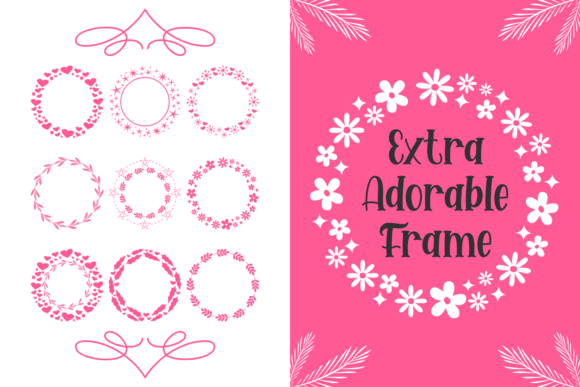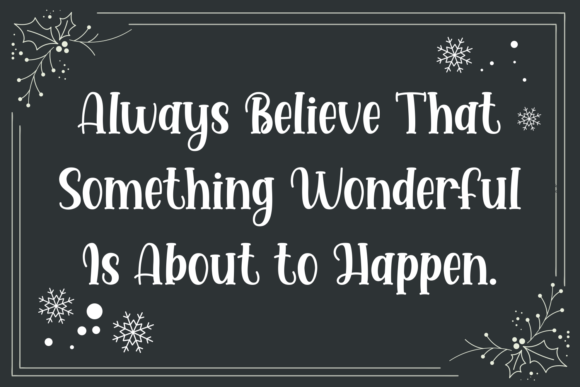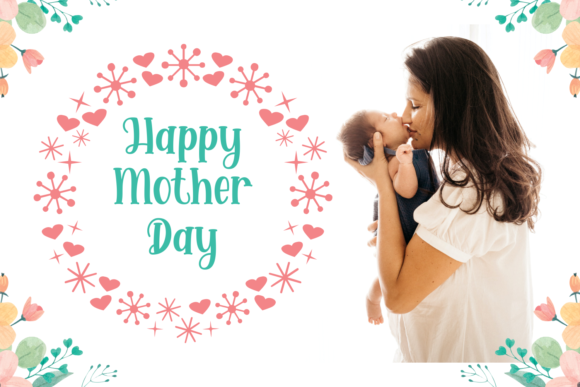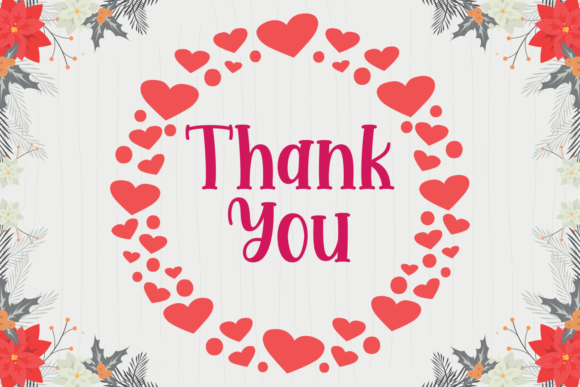
Introduction to Sephiya Font
As designers, we’ve all been there – staring at a blank page, trying to bring our creative vision to life. The words don’t quite flow, the images don’t quite pop, and we’re left wondering what’s missing. For me, that moment of truth often comes when I’m searching for the perfect font to elevate my design project. And that’s exactly where the Sephiya Font comes in.
With its sweet and delicate design, Sephiya Font is the perfect addition to any creative project. Whether you’re working on a high-quality brochure, a free download for your website, or a design resource for your next big campaign, Sephiya Font is sure to make your designs stand out. And with its PUA encoding, accessing all the glyphs and swashes is a breeze – no more tedious searching for the perfect character!
Key Features of Sephiya Font
- High-quality design: The Sephiya Font is a premium design resource that offers a unique and creative look for your projects.
- Transparent background: The font’s transparent background allows for easy integration into various design projects, giving you more creative freedom.
- Perfect for creative projects: The Sephiya Font’s unique design and high-quality output make it an ideal choice for designers working on creative projects, such as logos, branding materials, and more.
Honest Review: Sephiya Font
I recently stumbled upon the Sephiya Font, and I must say it’s a great addition to any designer’s arsenal. As a creative project, this font has the potential to elevate the visual appeal of any design.
- ✨ High quality: The Sephiya Font is crisp and clear, making it perfect for both digital and print projects.
- ✨ Versatile: This font can be used for a wide range of design projects, from logos to typography.
- ⚠️ Limited customization options: While the font is versatile, it may not be suitable for projects that require extensive customization.
- ⚠️ No transparent background: The font is a solid color, which may limit its use in certain design projects.
Overall, I’m impressed with the Sephiya Font. It’s a high-quality design resource that can add a touch of elegance to any creative project.
The Sephiya Font is a high-quality design resource perfect for any creative project. With its sleek and modern aesthetic, this font is ideal for a variety of applications. The best part? It’s available for free download, making it an excellent choice for designers on a budget.
To get the most out of Sephiya Font, try combining it with other design elements, such as bold graphics or bright colors. You can also use the font in conjunction with a transparent background to create a unique and eye-catching visual effect.
The Sephiya Font is perfect for a variety of applications, including business cards, flyers, and social media graphics. Its sleek and modern aesthetic makes it an excellent choice for any creative project.